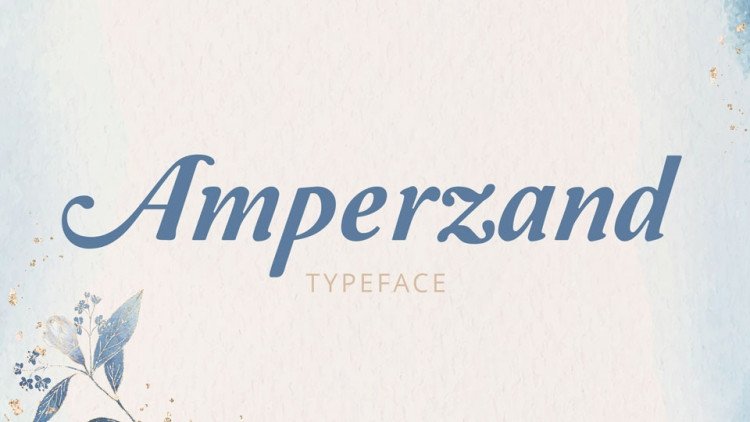
Amperzand Typeface
Amperzand Typeface is a beautiful old style cursive typeface. The font contains a complete glyph set with alternates.
Ampersand font is perfectly suitable for wedding designs, elegant titles, cards, letters and more.